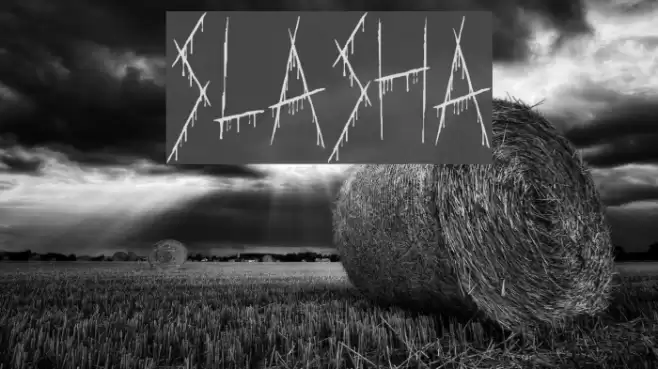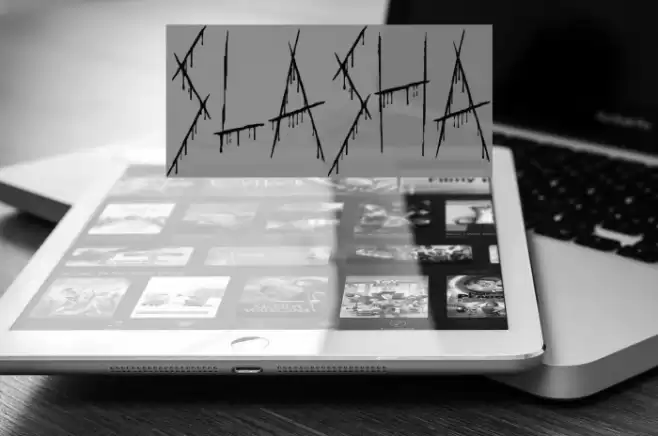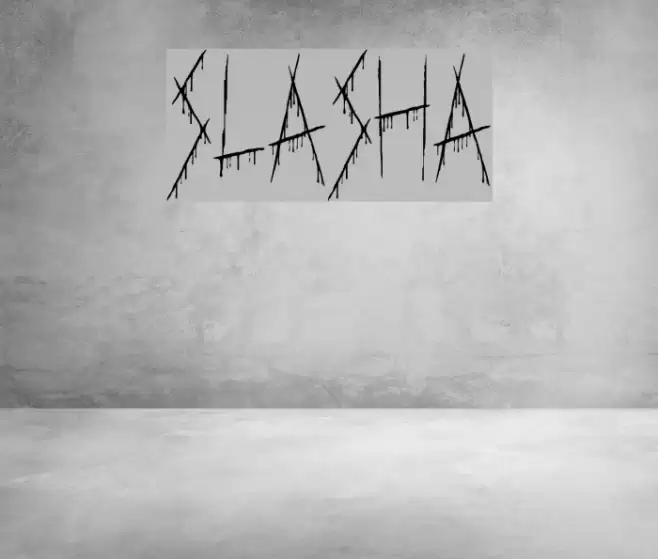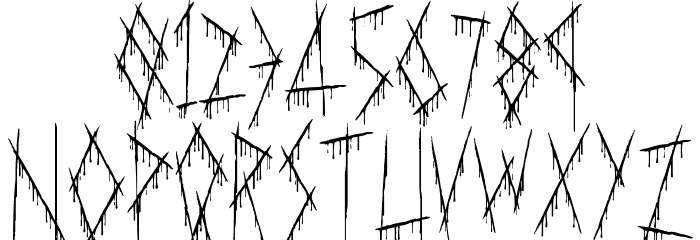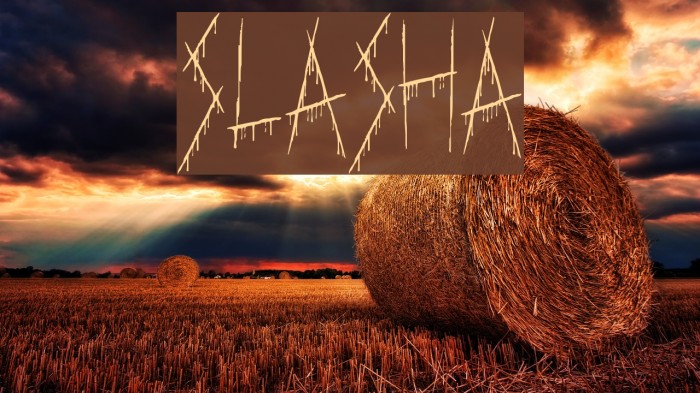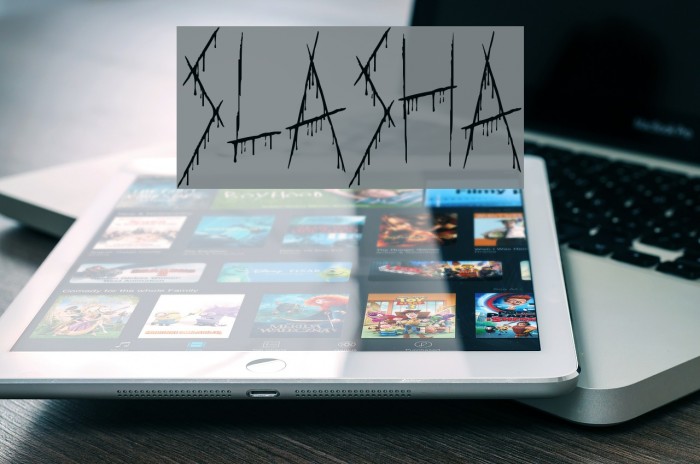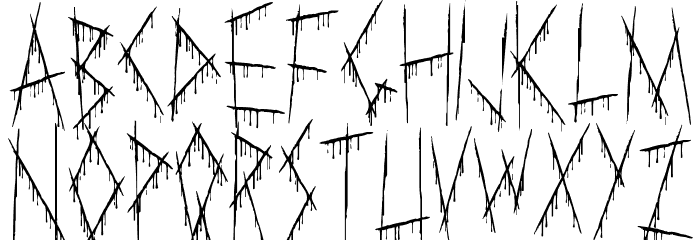
Slasha Font
Slasha Description
This font features a unique, edgy design with characters that appear to be constructed from sharp, jagged lines, reminiscent of branches or thorns. The letters have a dripping effect, adding a grungy, rebellious aesthetic. Each character is distinct, with an angular, irregular form that conveys a sense of chaos and intensity. The overall appearance is striking and unconventional, making it suitable for projects that require a bold, eye-catching typeface. The font's design is highly decorative, with a focus on creating a visual impact rather than readability.
An edgy, jagged font with a dripping, grungy aesthetic from Uncategorized fonts.
- Proposed Projects: Album covers, horror movie posters, edgy fashion branding, or any project needing a bold, rebellious look.
- Use Case: Logos, Posters, Titles